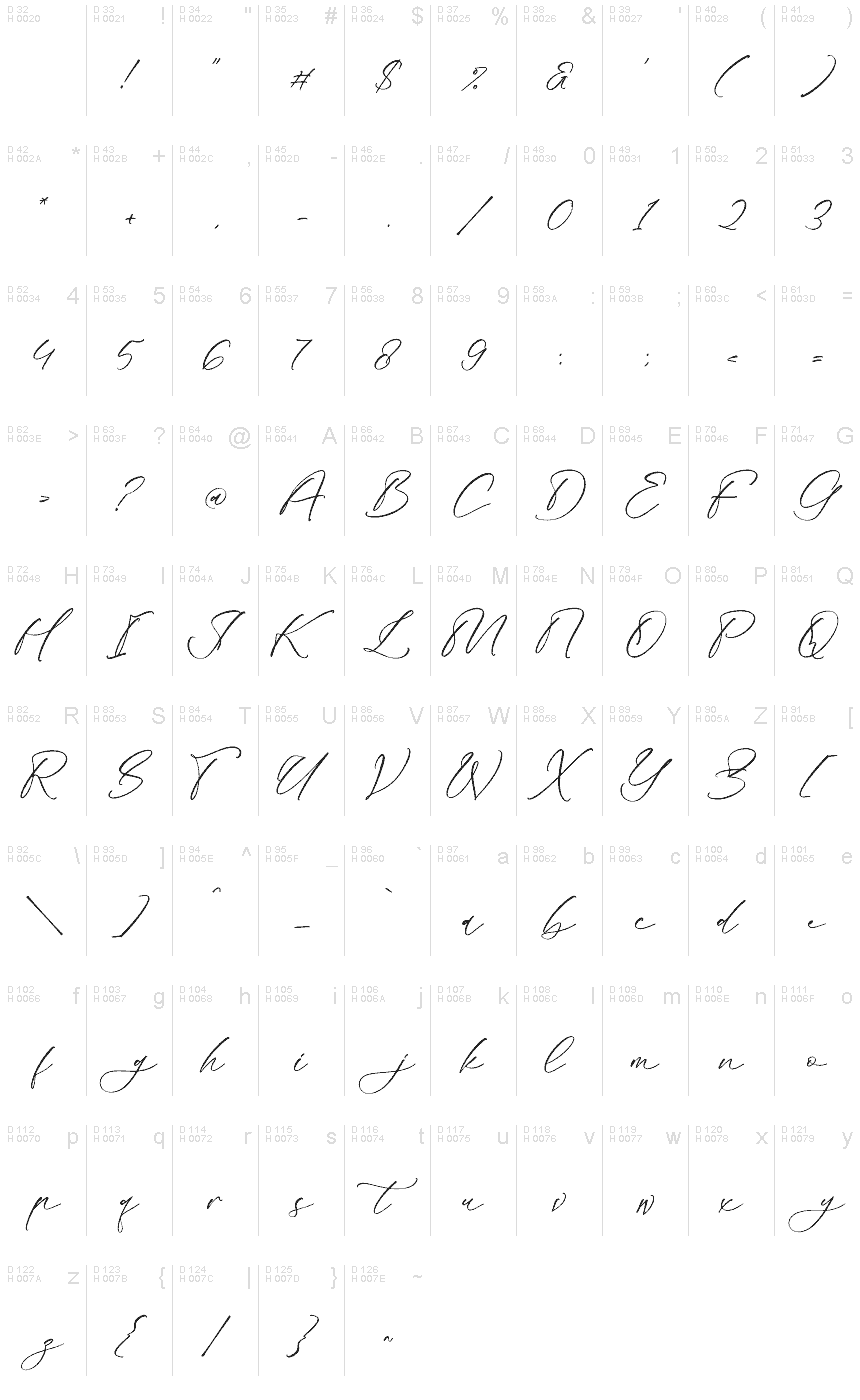
Mandela Clashinta
Mandela Clashinta font by Storytype Studio is a free handwritten font in a light weight. Its signature script flows elegantly across the design with deliberate brushstrokes and an artistic flair achieved through perfect connectivity and addition of extra touch deigns in each character. It embodies sophistication and an expressive mood with its swashing effect that naturally decorates all included letters.
Users interested can incorporate Mandela Clashinta into typographic logos, business cards, visiting cards, signers’ autographs, branding presentations, newspapers titles, magazines covers and pages, motivational quotes posts on social media platforms such as Instagram or Facebook. While it’s not the best for long texts, you can use it undoubtably for short paragraph writing as well!